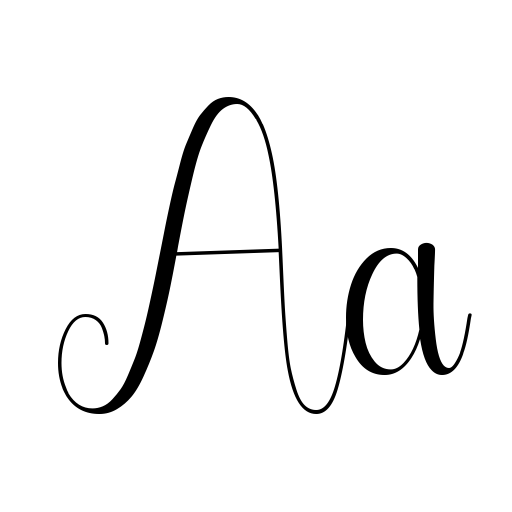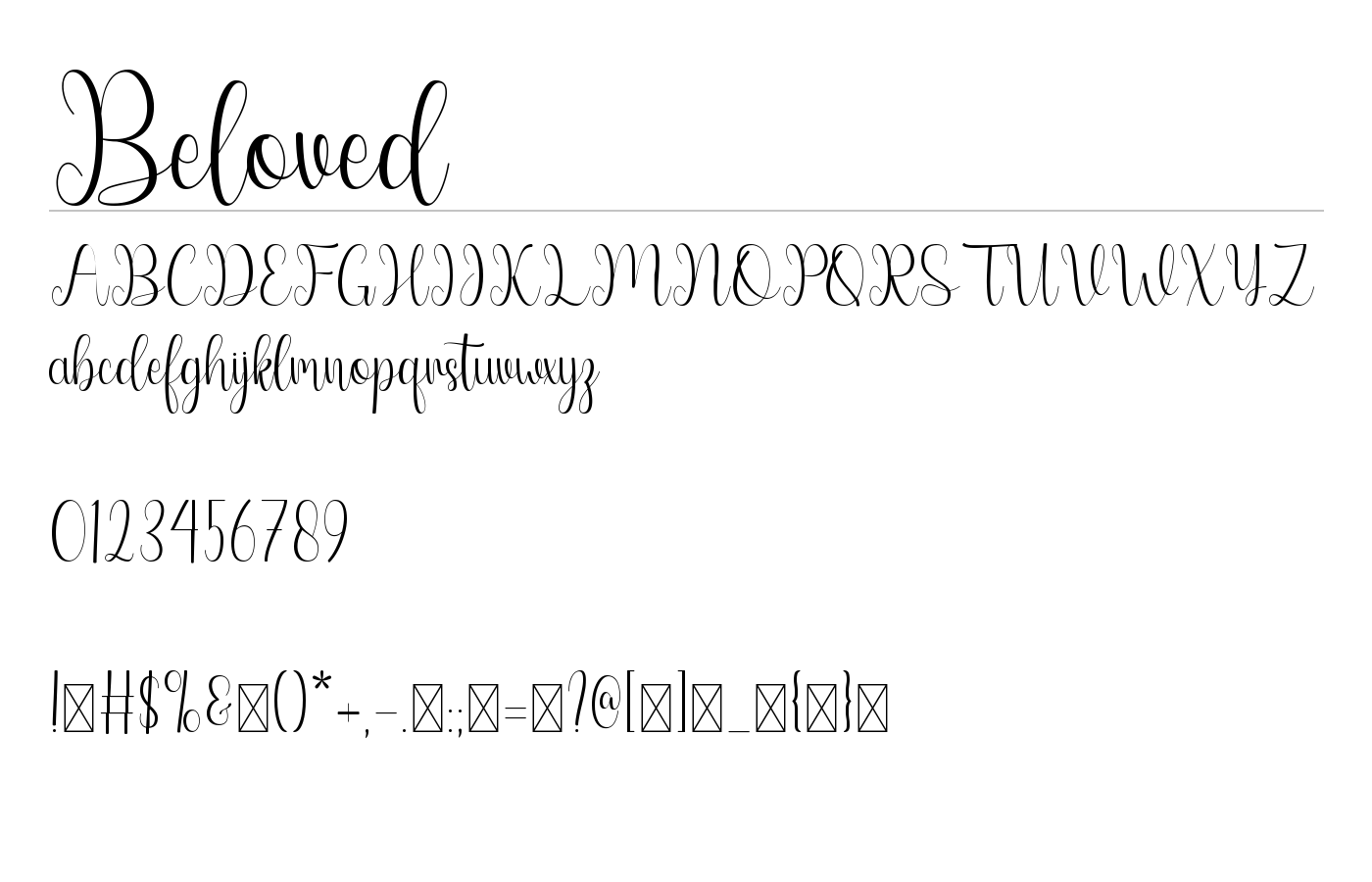
Beloved Font is a delicate, elegant script typeface featuring tall, slender letterforms with smooth, flowing curves and a graceful, handwritten feel. It carries a refined, romantic personality ideal for use in wedding invitations, luxury branding, and any design needing a touch of sophistication and charm. Its airy style and high contrast strokes make it perfect for headlines and decorative text where elegance and softness are desired.
Beloved Font